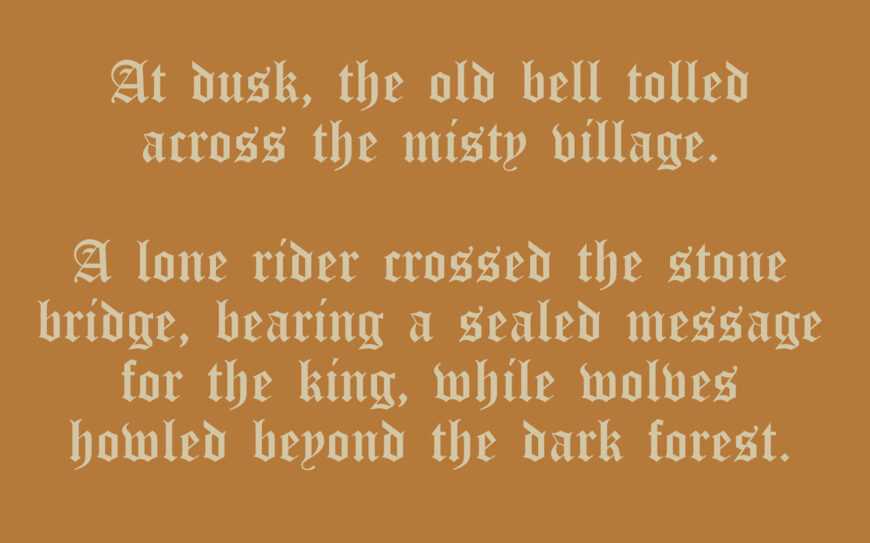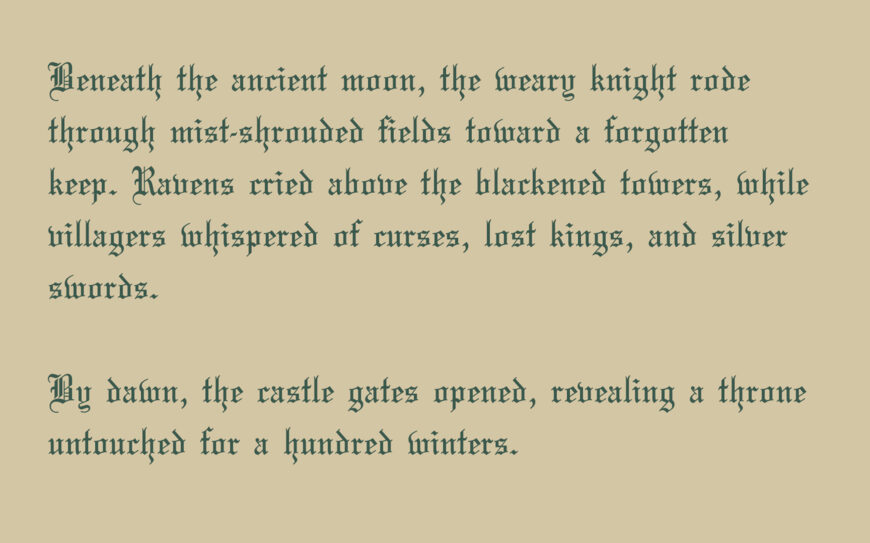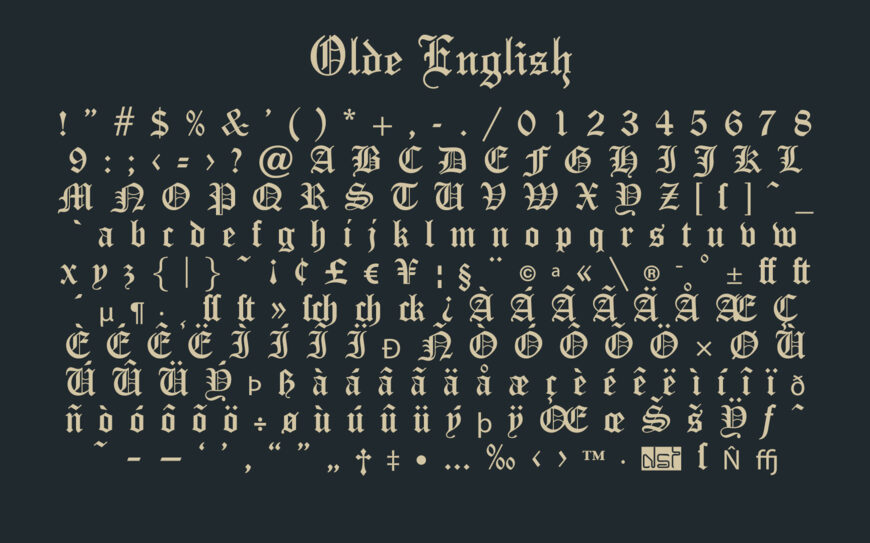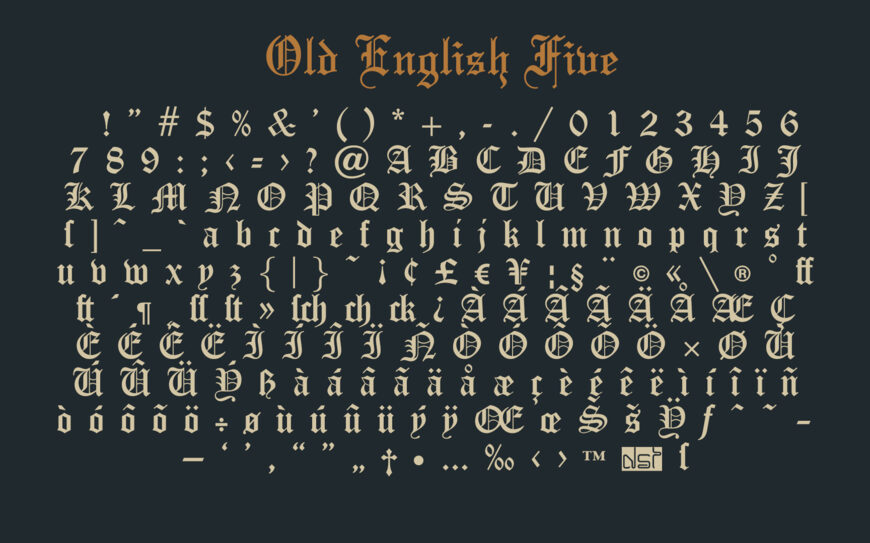
Olde English and Old English Five are decorative blackletter fonts designed by Dieter Steffmann. Both feature dramatic medieval letterforms, ornate capitals, sharp angular details, and an extensive character set with accented letters, symbols, and punctuation.
Old English Five has a slightly bolder, more commanding appearance, while Olde English feels narrower and more traditional. Ideal for historical titles, fantasy artwork, certificates, logos, posters, and gothic-themed designs. Both fonts are free for commercial use.